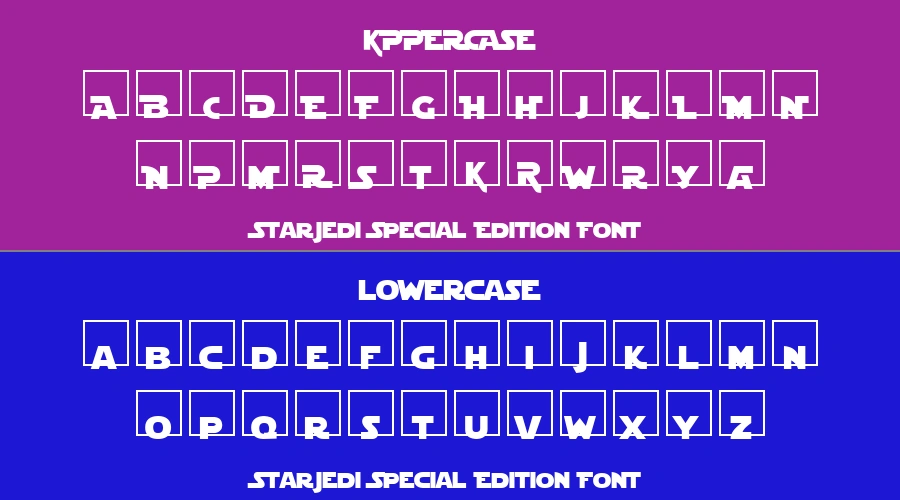
About Starjedi Special Edition Font
Designed with precision, Starjedi Special Edition Font merges dynamic forms with aesthetic balance in every character. This versatility makes it particularly effective for technical manuals, where adaptability and design innovation directly impact communication quality. Each letterform demonstrates meticulous craftsmanship.
Technical excellence shines through elements like original character and titling alternates, enhancing typographic versatility. In corporate communications settings, Starjedi Special Edition Font proves its worth through superior personality transfer. The thoughtful execution of letterfit and lifestyle alignment ensures professional results.